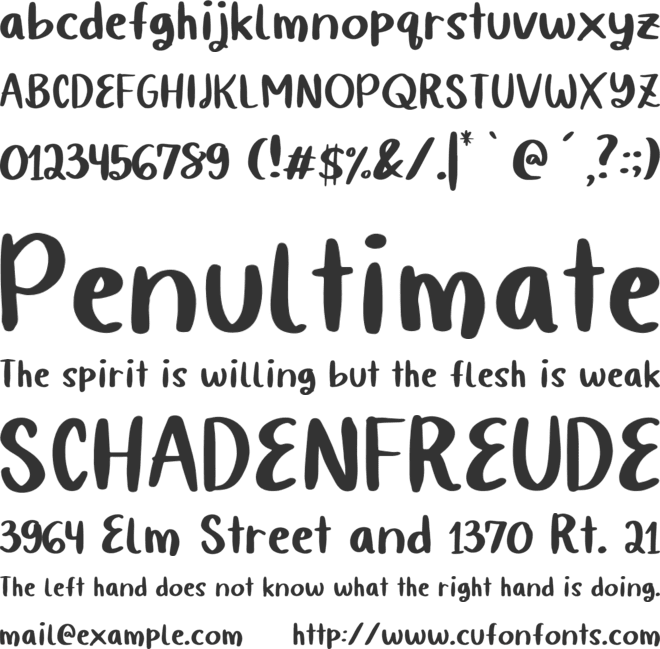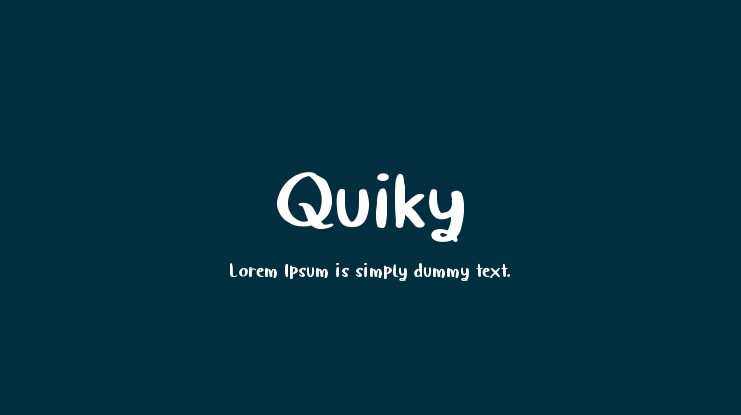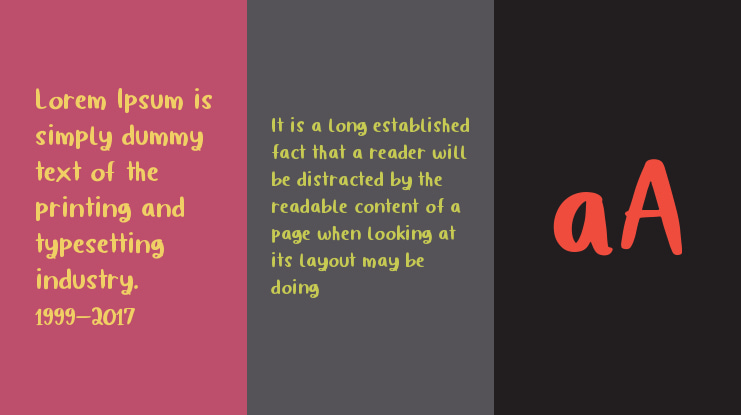
Quiky Font
​​​​​​​Introducing our Quiky! A playful, hand lettered font. It has smooth lines, a heavy weight, sweet curves and a lot of characters that you can named it. Quikyee suits for your design such as invitation design, stationery, branding, blog design, advertising design, card, art quote, home decor, book title, special events and more. This font also includes Latin Characters for languange support.
Quiky font preview